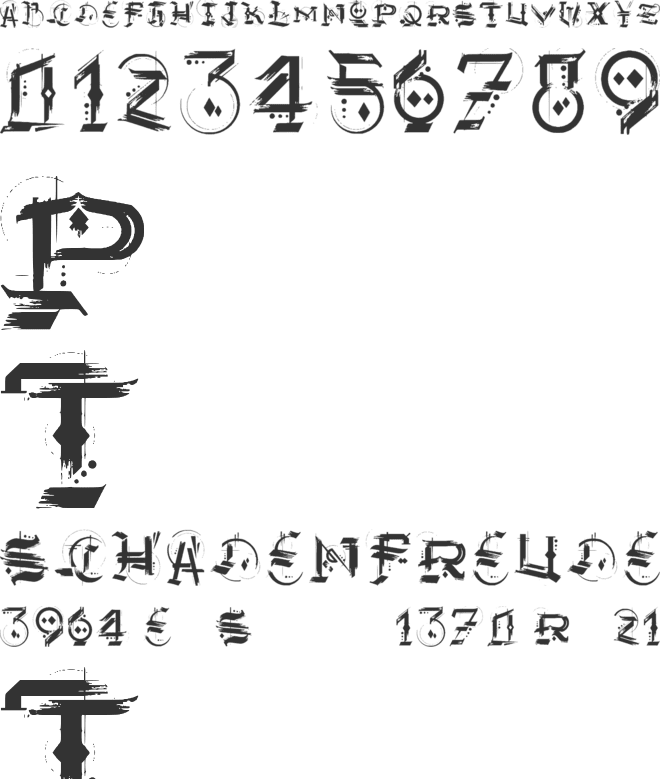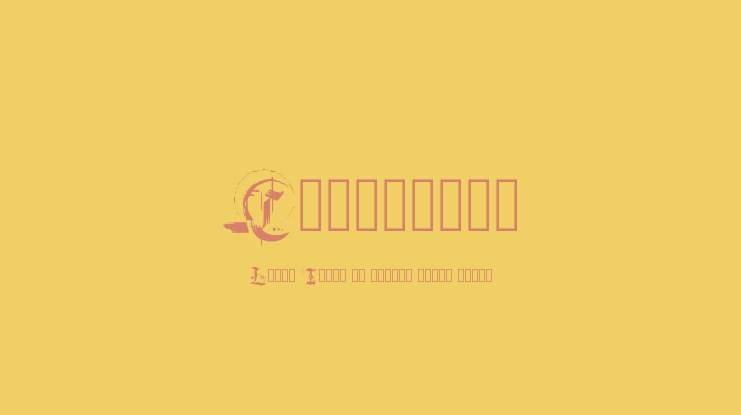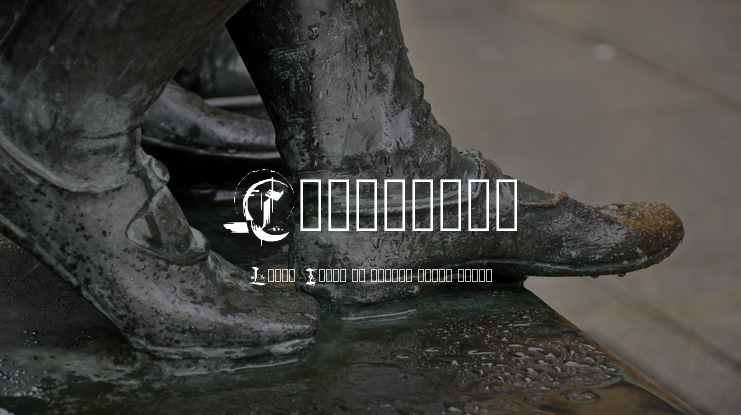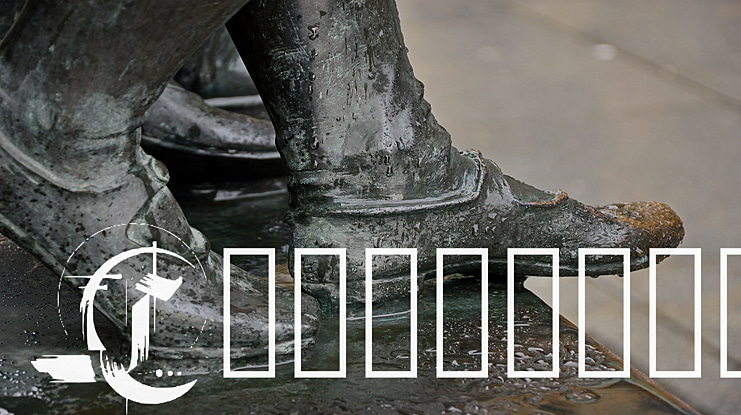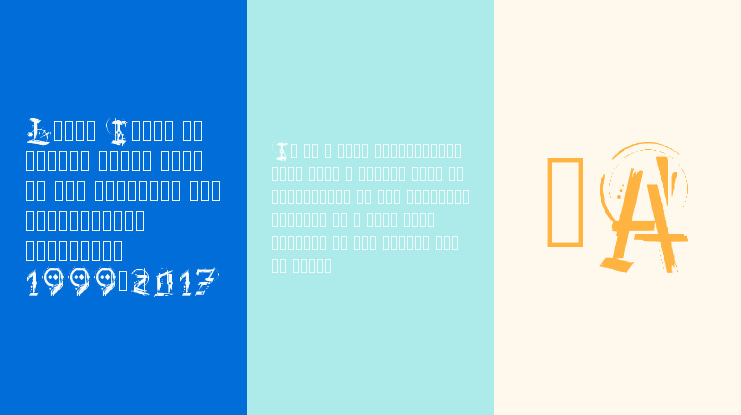
Culturism Font
Ever wanted to type calligraphic characters digitally instead of writing them manually? Then Culturism is for you. A font that combines both hand style technique and modern technologies together.
Inspired by the idea I found in Pokras Lampas' calligraphic works of how futuristic typography will connect all cultures and merge them into a completely new alphabet, Culturism combines various amounts of alphabets in it.